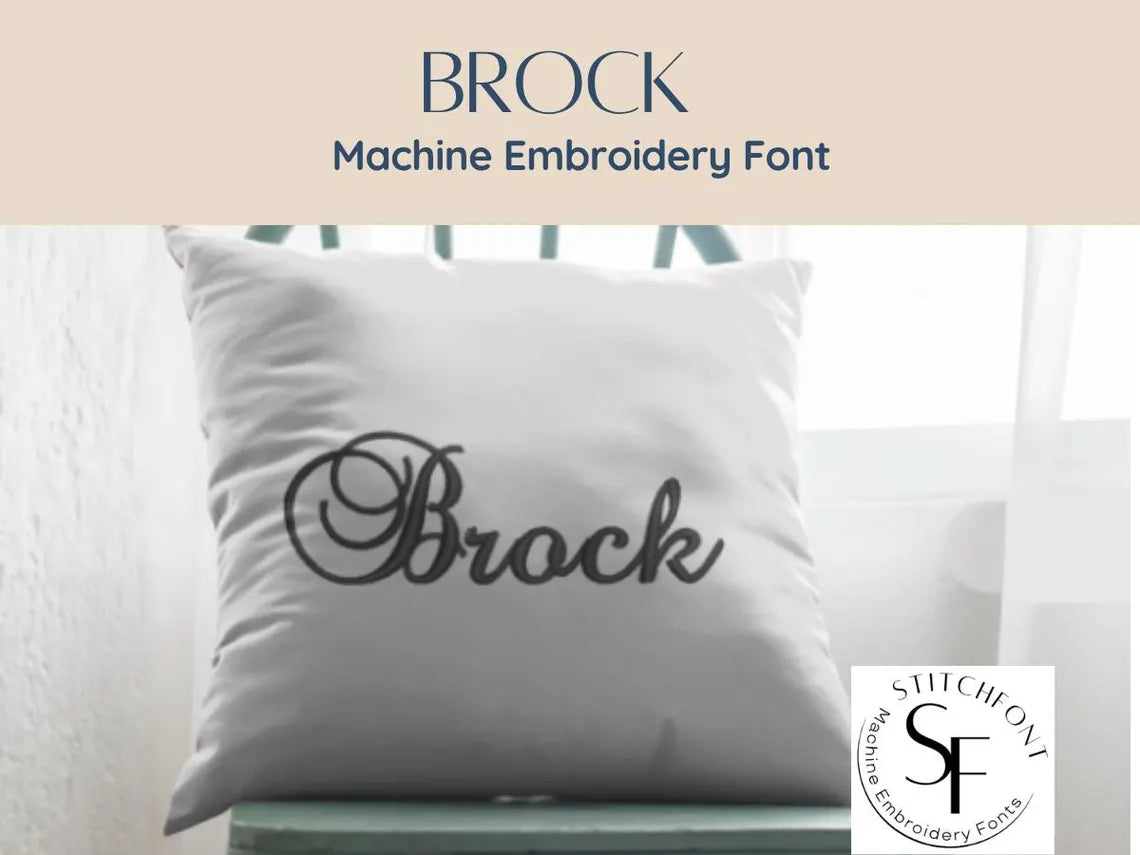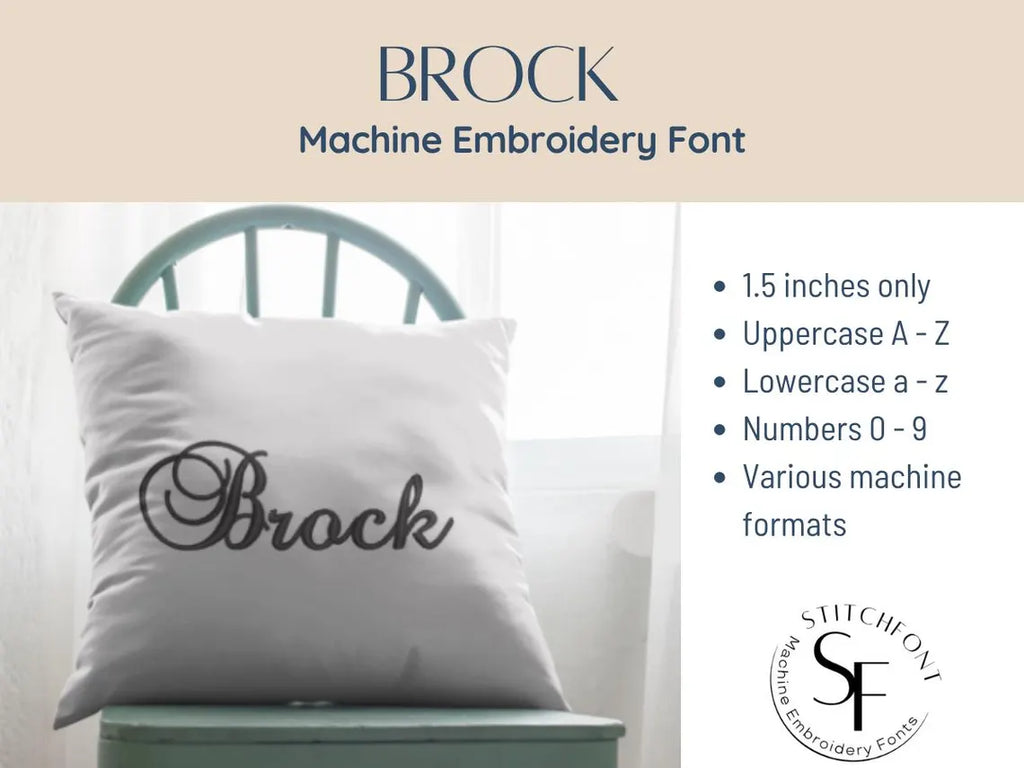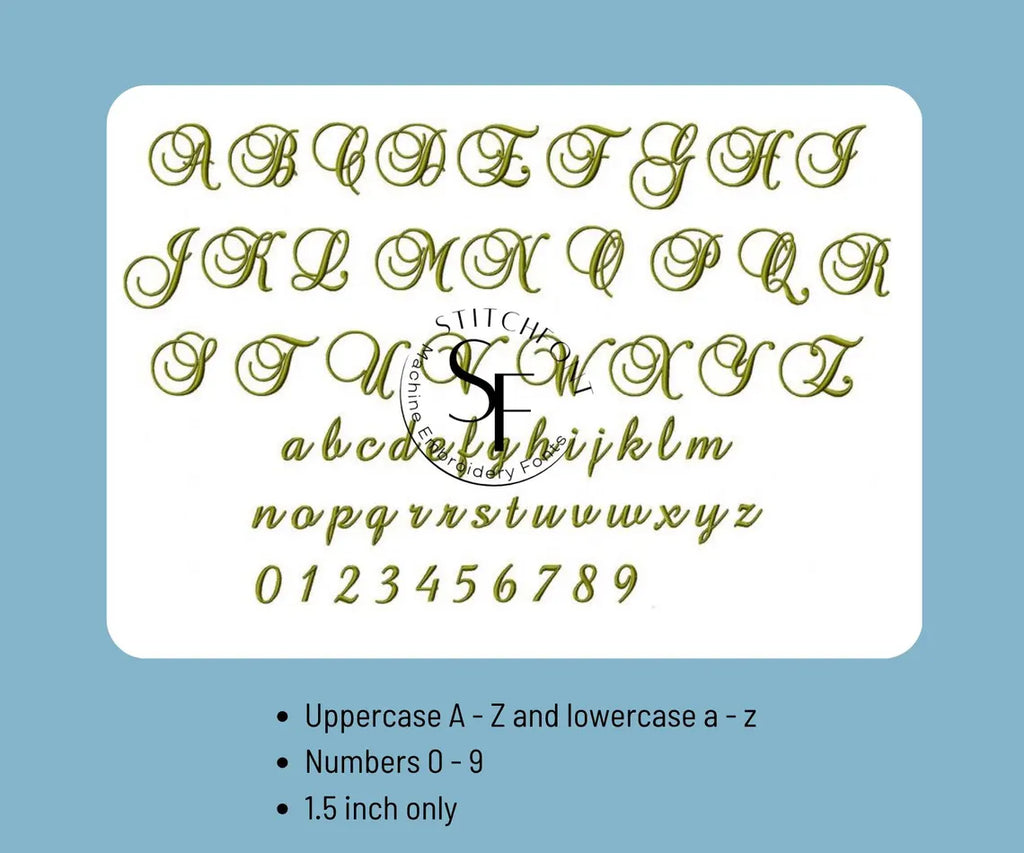
Machine Embroidery Satin Font Alphabet - Brock - 1 size - 8 formats
🖋️ Brock Satin Embroidery Font – Elegant Calligraphy with Timeless Charm 🖋️
Add classic sophistication to your stitching with the Brock Font – a flowing calligraphy-style satin font designed to bring beauty and grace to every project. With its delicate strokes and refined curves, Brock is ideal for wedding gifts, heirloom embroidery, and upscale personalization.
* Size: 1.5"
* Satin Stitch for smooth, graceful lines
* Full Uppercase A–Z
* Lowercase a–z
* Numbers 0–9
* Stylish, flowing script for a high-end look
* Digitized for clean, professional stitching
* Pairs beautifully with floral, lace, or vintage designs